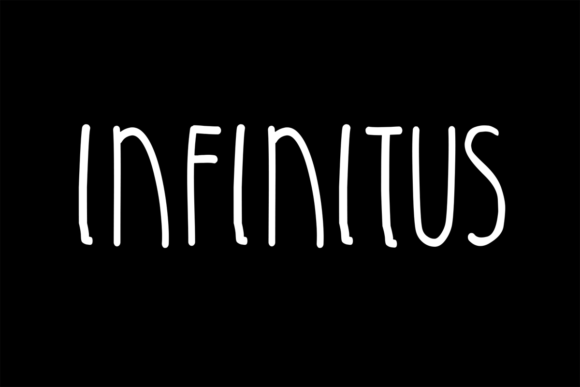
HomeScript FontsK26 Infinitus Font Script Fonts K26 Infinitus Font FacebookXPinterestWhatsApp About K26 Infinitus Font K26 Infinitus is a playful handdrawn font. DOWNLOAD NOW People also explored Quallien Cansta Font Griselda Font Supadupa Font Sheyla Script Font Nachum Font Holly Jolly Font The Bustonh Font Caesar Brute BTN Barcelona – Handwritten Font 285 0 TagsK26 Infinitus Font Previous articleHellobello! FontNext articleAurelia Font LEAVE A REPLY Cancel reply Comment: Please enter your comment! Name:* Please enter your name here Email:* You have entered an incorrect email address! Please enter your email address here Website: Save my name, email, and website in this browser for the next time I comment. Personal Use Free Sunflower Personal Use Free Read more about this font No Virus Personal Use Free Read more about this font Jabirah Personal Use Free Read more about this font Colombia Personal Use Free Read more about this font BLOG Free Fonts Risk: Why Free Fonts Can Be Dangerous for Designers Free Fonts Risk: Why Free Fonts Can Be Dangerous for Designers Using free fonts is a common practice in web and graphic design. However, the... Modern Sans-Serif Fonts That Brands Love in 2025 Best Fonts for T-Shirt Design – Top 2025 Picks Free vs Paid Fonts: Why Investing in Premium Fonts Is Worth It